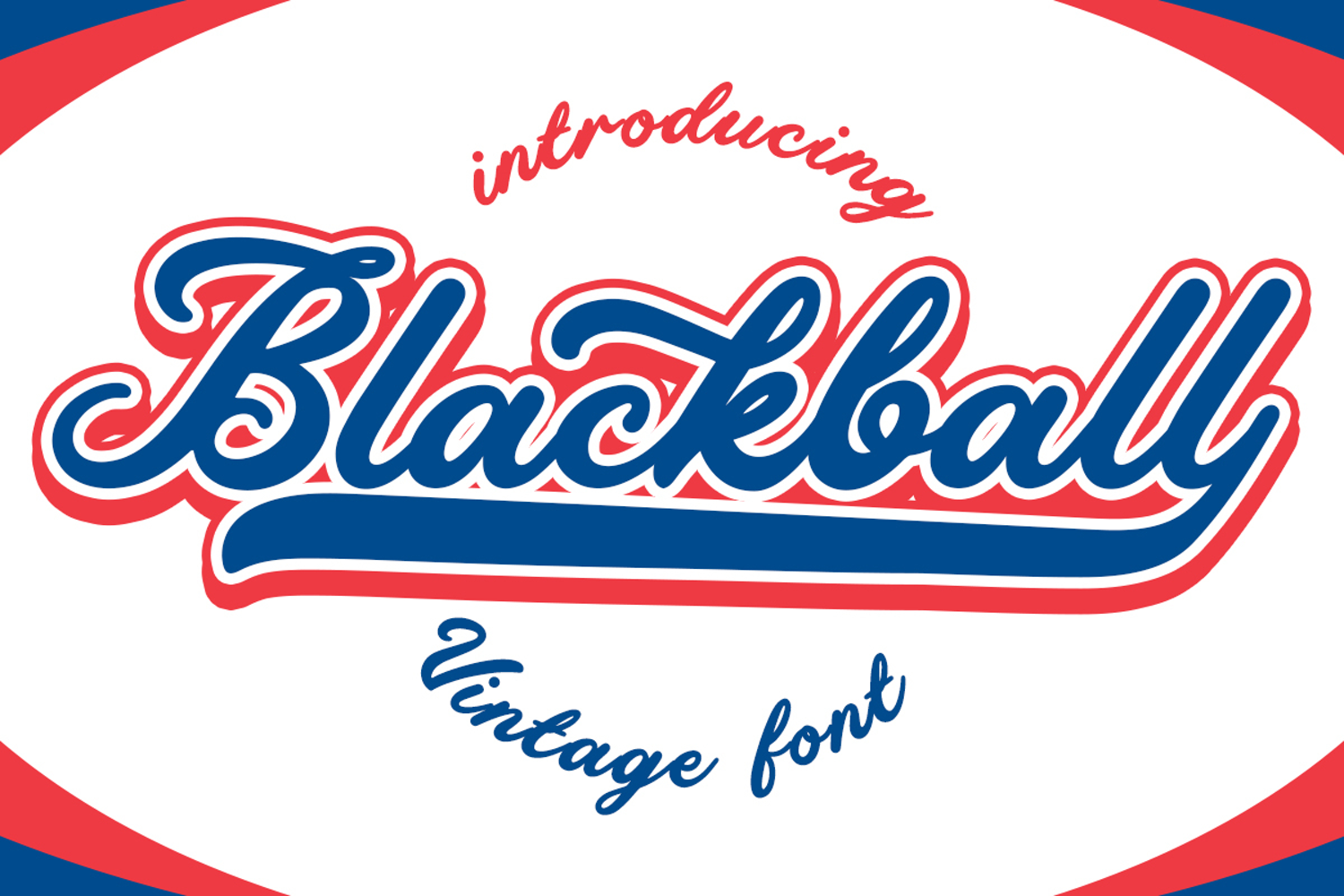
Blackball - A Bold and Powerful Script Font
Blackball
Make a statement with Blackball, a bold script font designed for impact!
Blackball combines the fluidity of a handwritten script with a heavy, solid weight that’s perfect for grabbing attention. Its thick strokes and smooth curves make it incredibly easy to read and, more importantly, perfect for cutting.
If you are a crafter using Cricut or Silhouette, you will love how clean this font cuts on vinyl, cardstock, or wood. It’s the ultimate choice for creating professional-looking sports logos, streetwear designs, and bold branding.
• Bold & Solid: Great for headlines and logos.